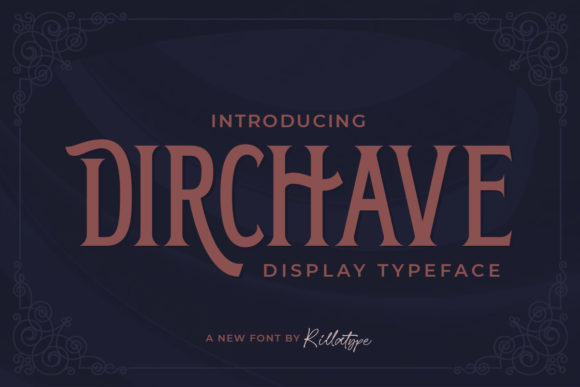
Unleash the Power of Persuasion with Dirchave: The Display Ad Font That Commands Attention
In a world where visual impact is paramount, your display ads need to cut through the clutter and leave a lasting impression. Introducing Dirchave, the ultimate serif font designed to elevate your advertising campaigns to new heights. Created by the renowned Rillatype, Dirchave is a bold, vintage-inspired font that exudes a sense of authority and sophistication. Its thick, commanding letters demand attention, while its elegant curves add a touch of timeless charm.
With Dirchave as your secret weapon, your display ads will radiate an aura of confidence and distinction. Its versatility extends beyond display ads, making it an exceptional choice for branding, packaging, labels, and any other project that demands a striking presence. Join the ranks of successful marketers who have witnessed the transformative power of Dirchave and watch your conversion rates soar.
Discover the Allure of Dirchave: A Vintage Masterpiece for Modern Marketers
Step into a realm of vintage charm and modern elegance with Dirchave. Its carefully crafted letterforms evoke a sense of nostalgia, while its contemporary twist ensures it remains relevant and impactful in today's digital landscape.
Experience the versatility of Dirchave as it effortlessly adapts to a wide range of design projects. Whether you're crafting eye-catching headlines, captivating logos, or stylish packaging, Dirchave delivers exceptional results. Its bold strokes and refined curves command attention, leaving a lasting impression on your audience.
Harness the Power of Dirchave: A Font Built for Success
Dirchave is more than just a font; it's an investment in your brand's identity. Its distinctive character will set you apart from the competition, helping you establish a strong and memorable presence in the minds of your customers.
Unlock the full potential of Dirchave and witness the remarkable transformation it brings to your marketing materials. Its ability to capture attention and evoke emotions will propel your brand to new heights of success. Embrace the power of Dirchave and embark on a journey of visual storytelling that will leave your audience captivated.